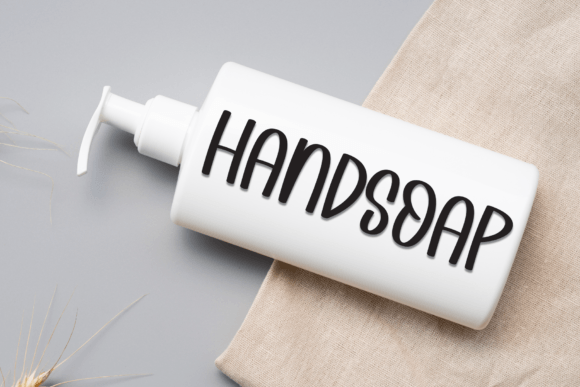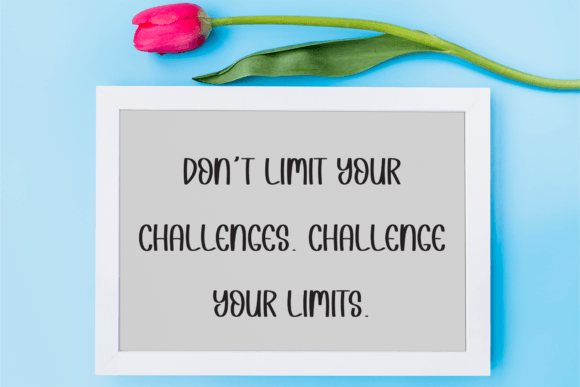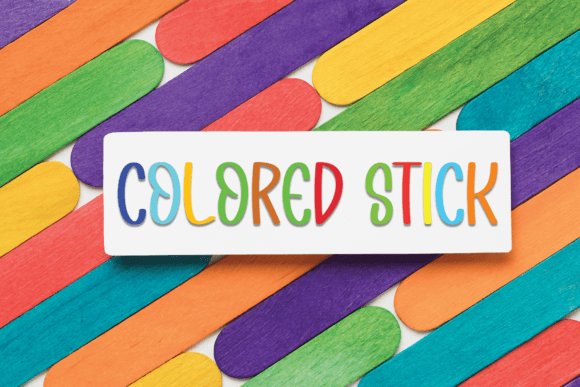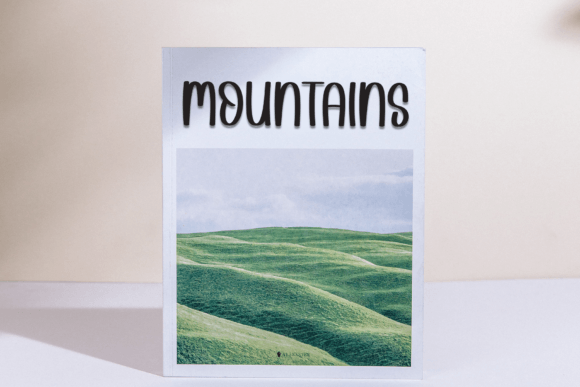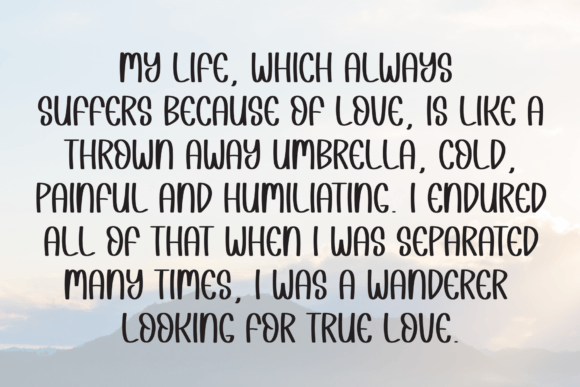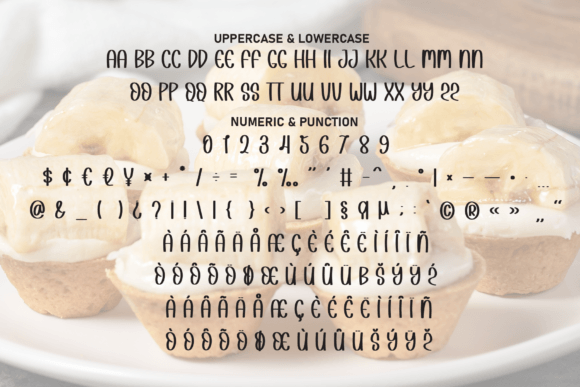
The Perfect Recipe for Captivating Designs
Who hasn’t experienced that moment of creative spark when a new font catches their eye? Perhaps it’s the quirky charm of a handwritten script or the bold flair of a sans-serif font. For designers, discovering the right font can be the secret ingredient that elevates a project from good to great.
Meet the Banana Cupcake Font, a lively and full-of-personality display handwritten font that brings the charm of natural handwriting to bold, eye-catching designs. With its playful curves and casual style, it’s the perfect addition to logos, posters, packaging, quotes, and social media graphics.
For designers seeking to add a friendly, handcrafted feel to their work, the Banana Cupcake Font is a valuable tool. Its unique blend of readability and character makes it an ideal choice for projects that require a touch of personality and whimsy.
Banana Cupcake Font Key Features
- Font Family: Banana Cupcake Font, a unique and playful script font
- Unique Characteristics: Features swashes, flourishes, and ligatures for a handcrafted look
- Language Support: Supports multiple languages, including Latin-based alphabets and Cyrillic
Design Review: Banana Cupcake Font
Overall, the Banana Cupcake Font has a playful and charming personality that’s sure to catch the eye. ✨ The font’s unique, hand-drawn feel is reminiscent of old-fashioned bakery signs, which adds to its whimsical charm. ✨ The letterforms are well-balanced, and the font’s character set is extensive, making it suitable for a wide range of projects.
However, there are some limitations to consider. ⚠️ The font’s legibility can be a concern at smaller font sizes, particularly for longer blocks of text. ⚠️ Additionally, the font’s unique style may not be suitable for all types of projects, such as formal documents or serious editorials.
- Unique, hand-drawn feel that’s reminiscent of old-fashioned bakery signs
- Extensive character set, making it suitable for a wide range of projects
- Well-balanced letterforms
- Legibility can be a concern at smaller font sizes
- May not be suitable for formal or serious projects
Overall, the Banana Cupcake Font is a fun and playful addition to any design project. While it may have some limitations, its unique charm and extensive character set make it a great choice for creative projects and branding.
The Banana Cupcake Font is perfect for:
- Baking and food-themed designs.
- Summer-themed designs and graphics.
Remember to use the font in moderation and in conjunction with other fonts to avoid overwhelming the design.
For optimal readability, we recommend using a font size between 12-14 points and a line height of at least 1.5 times the font size. This will ensure that the text is clear and easy to read, especially in digital formats.